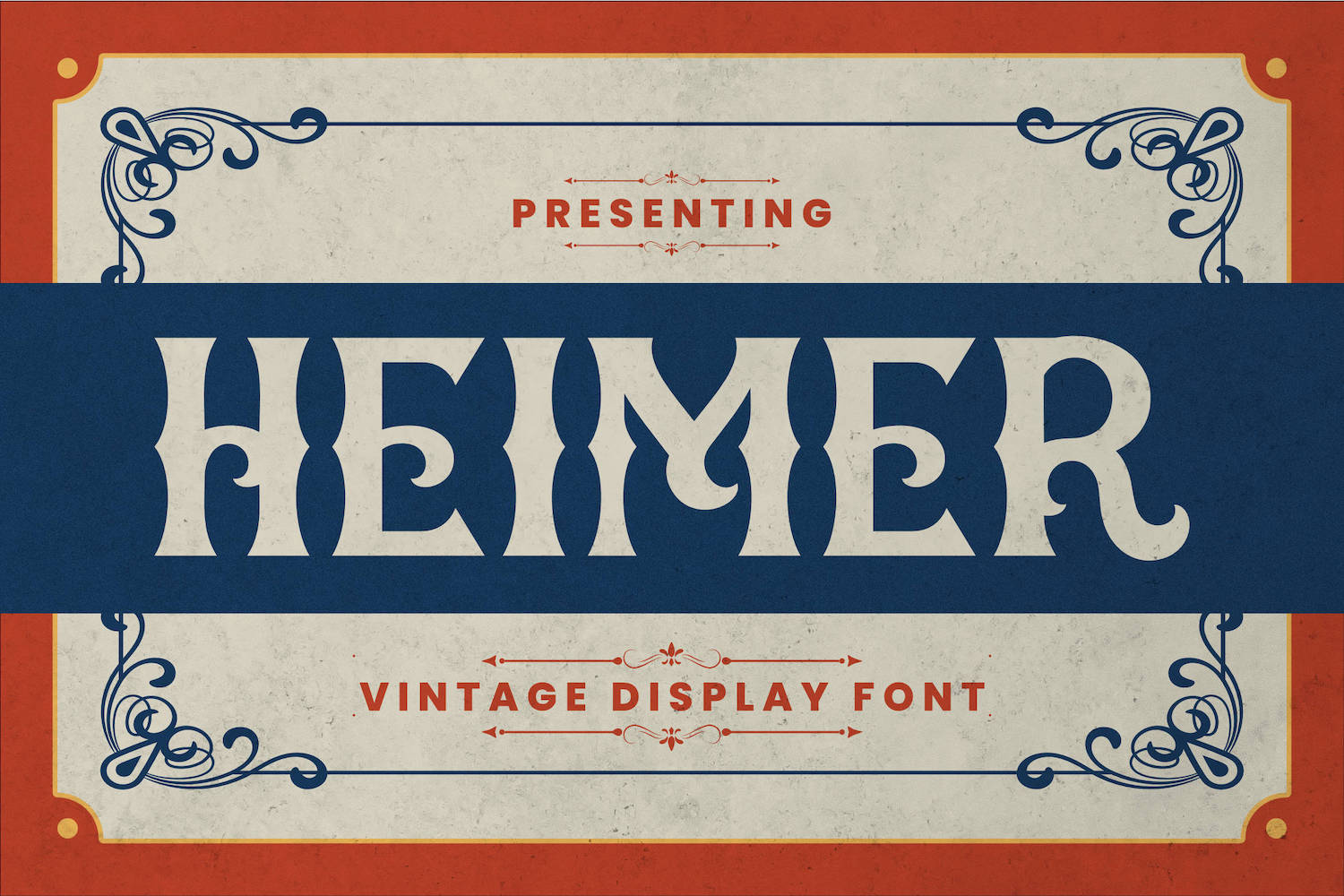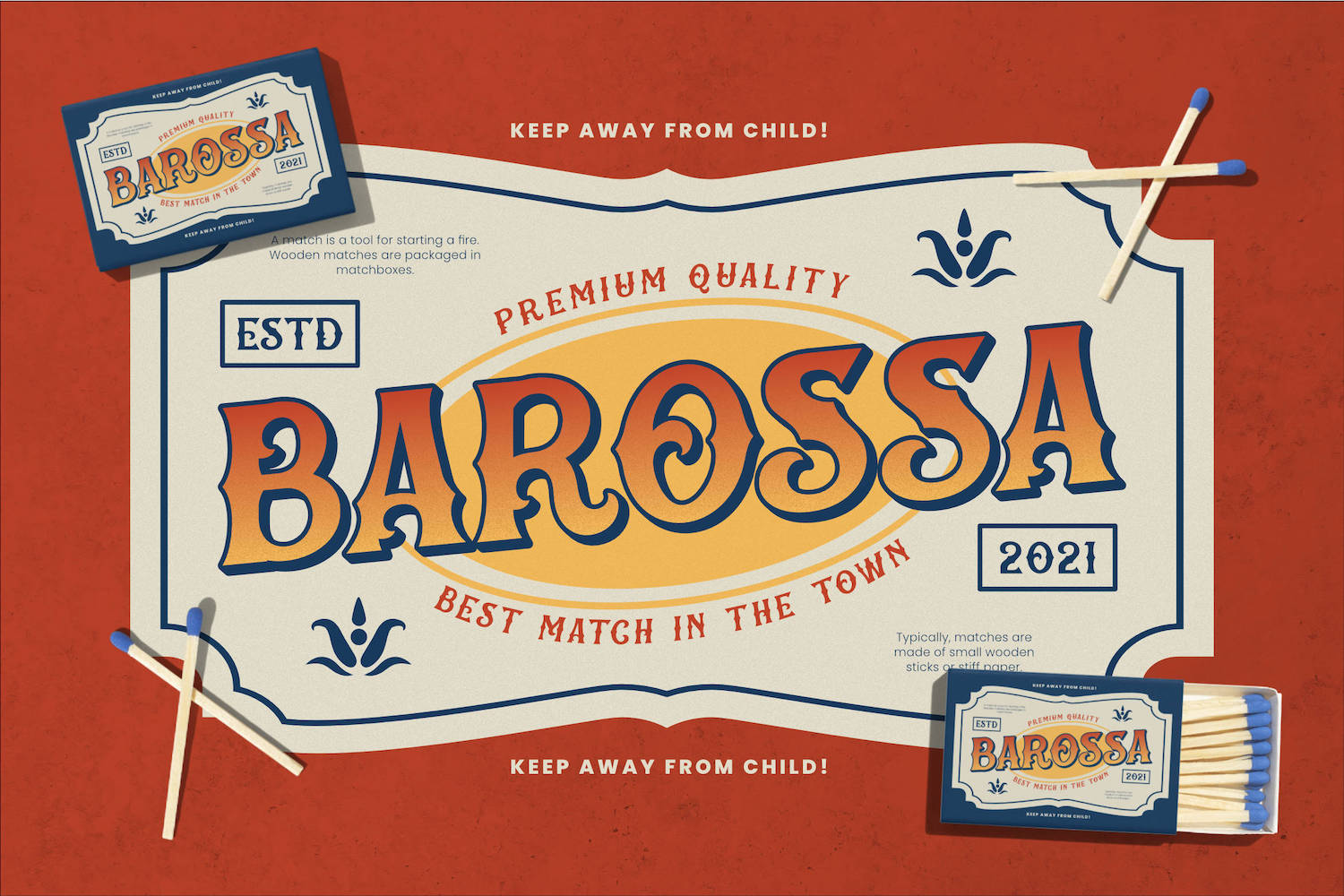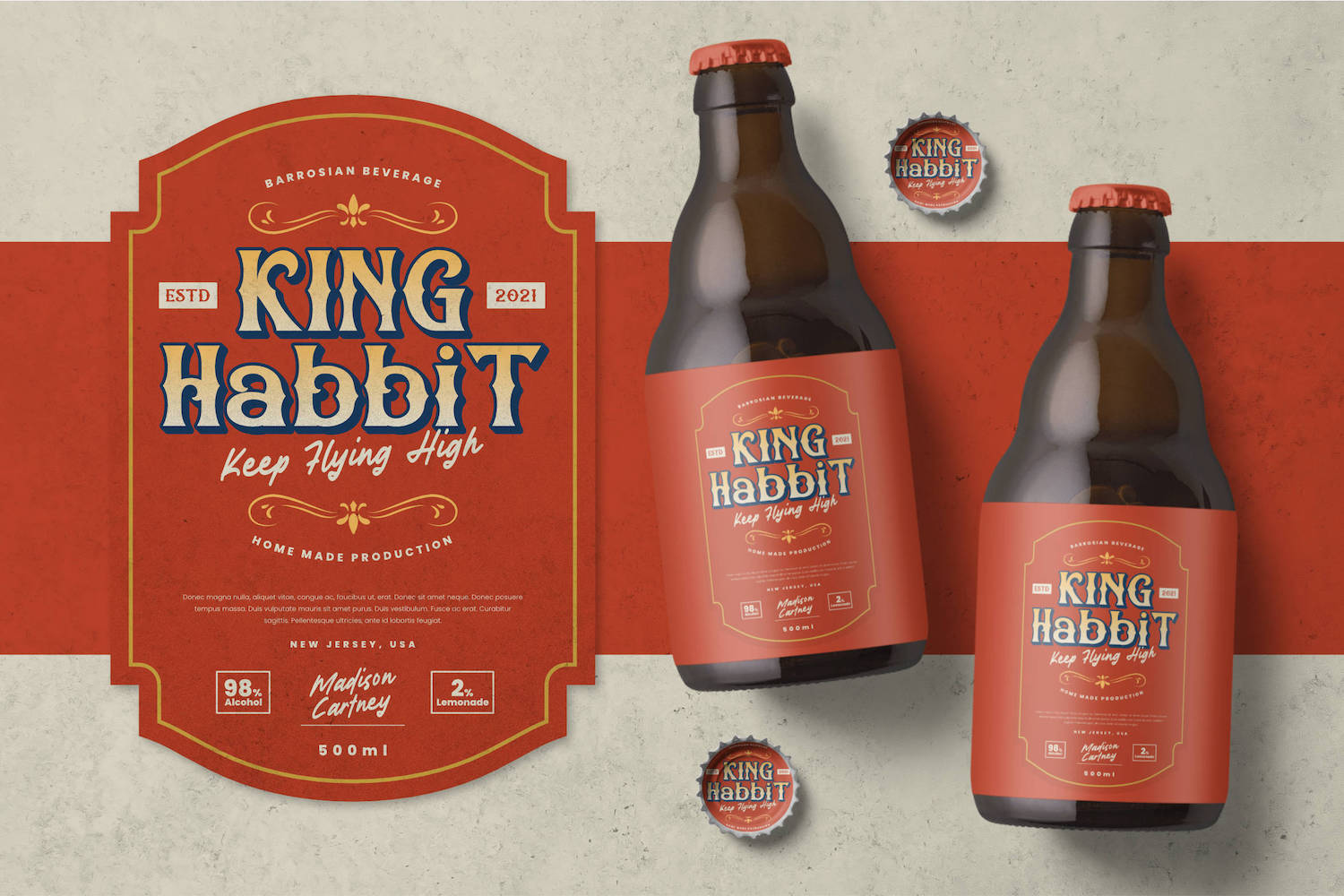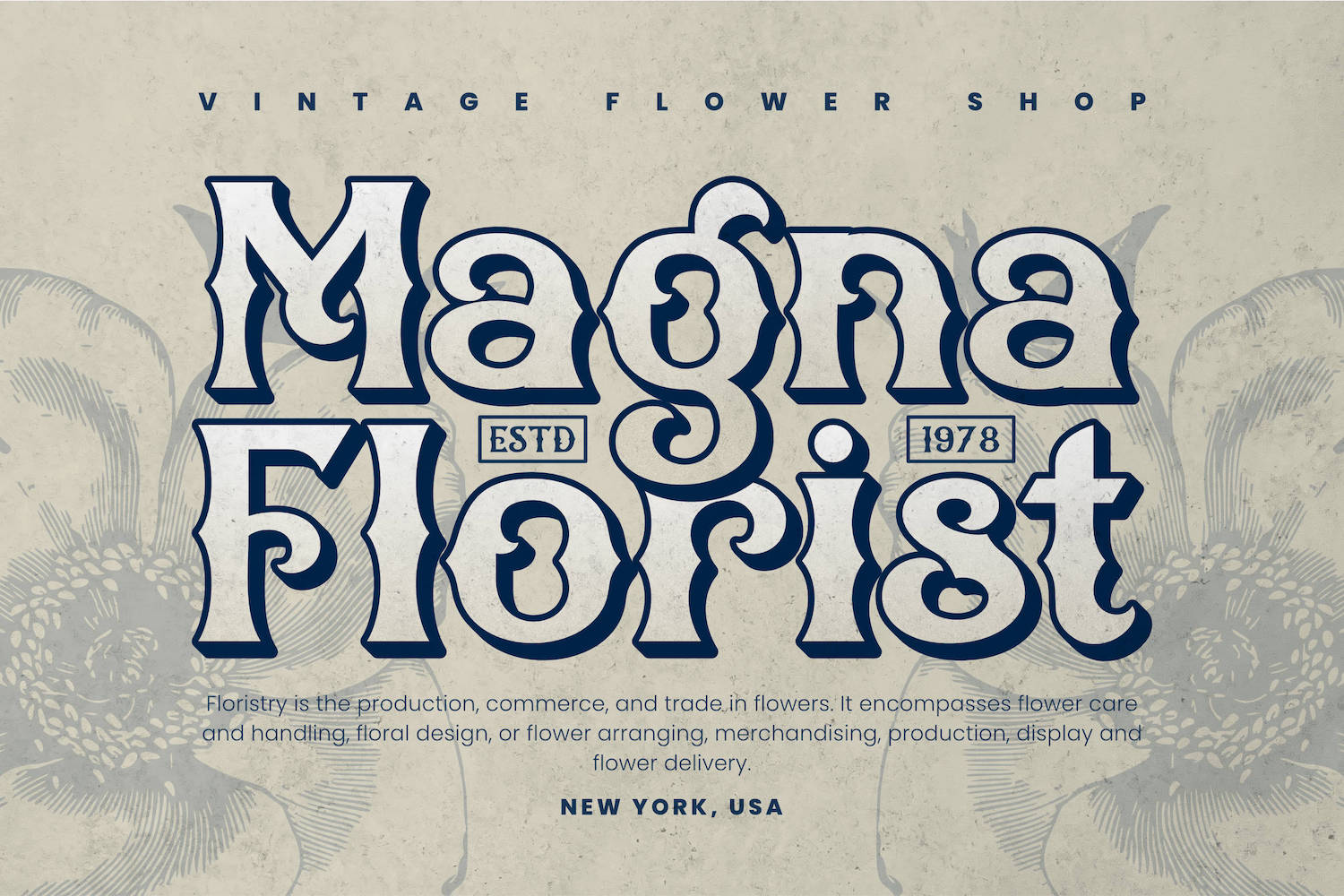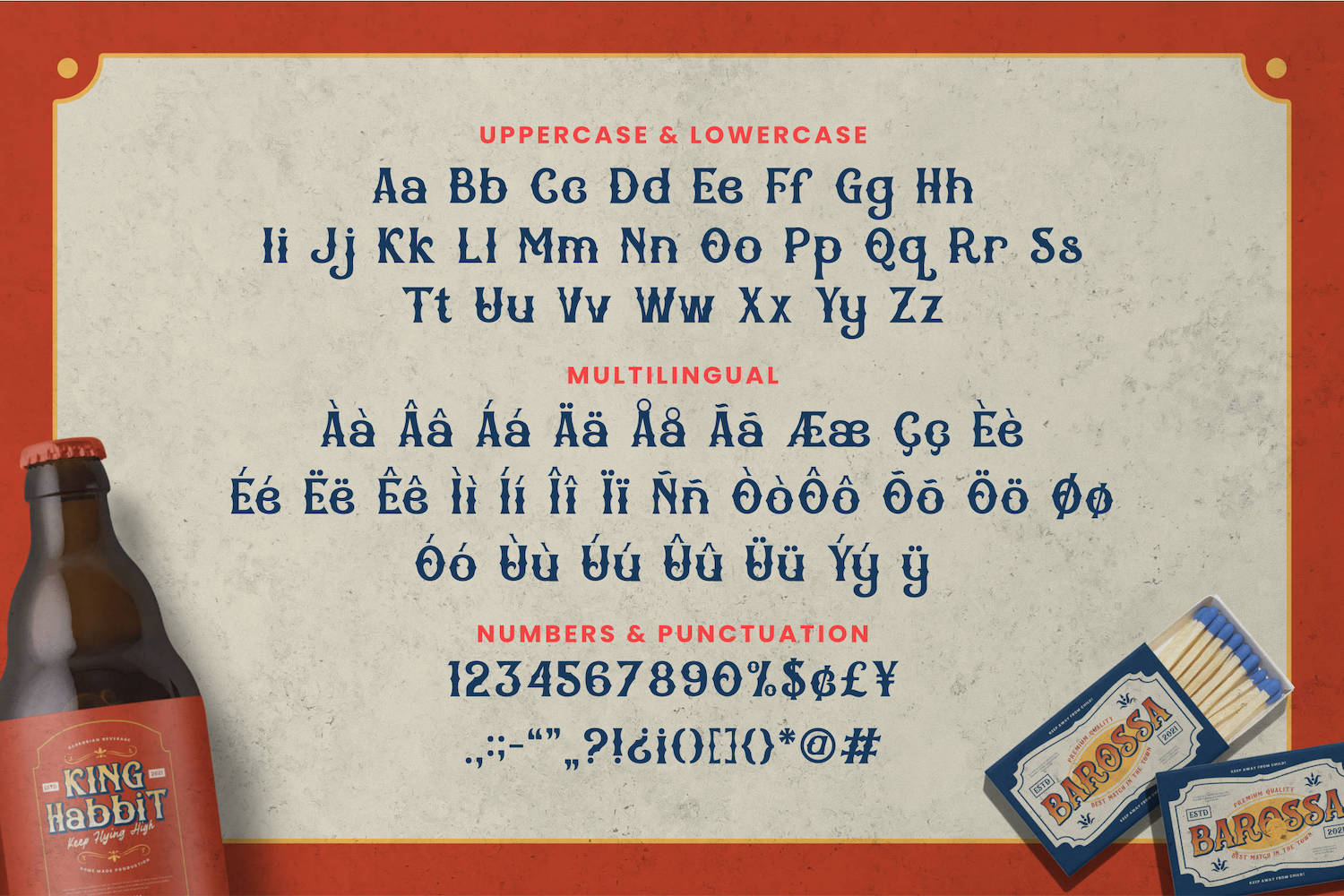
Heimer is a bold and striking vintage display font that brings a sense of heritage and craftsmanship to every design. Inspired by old-school print and retro sign painting, Heimer features strong serifs, decorative curves, and a touch of Western flair, making it ideal for packaging, labels, logos, and posters with a classic or nostalgic theme.
With multilingual support, stylistic alternates, and full punctuation, Heimer is a versatile typeface for designers who want to add authenticity and personality to their visuals. Whether used for branding whiskey labels, barbershop signage, or vintage apparel, Heimer will make a lasting impression.
Heimer